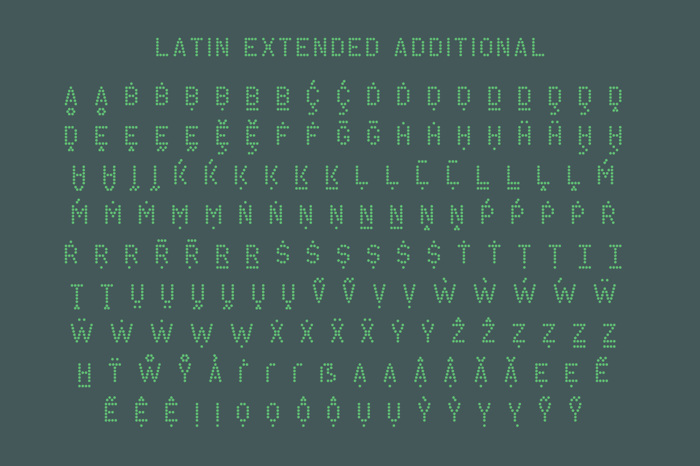
StreetDot Demo Font
StreetDot Regular is a dot matrix font inspired by the 2014 collaboration between The Decades and Head Crack 456. The font features 851 characters, including many accented in the Latin supplement, extended, and additional.